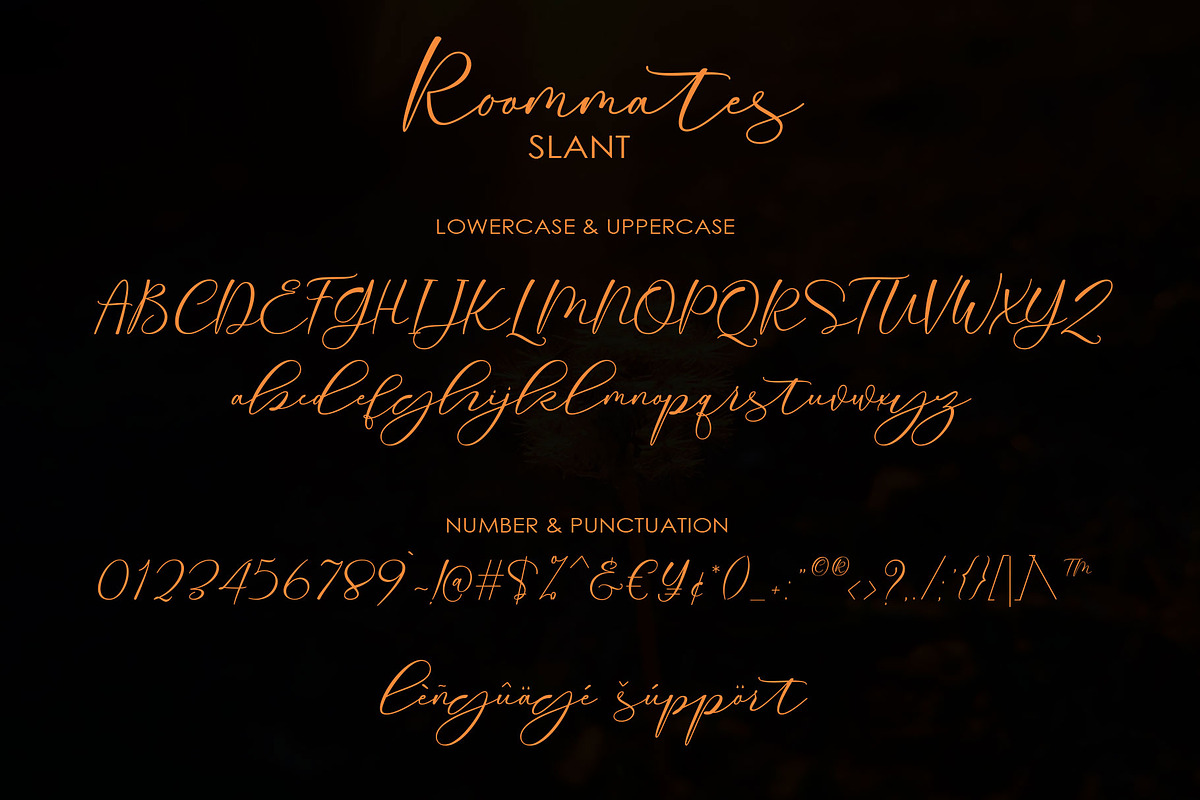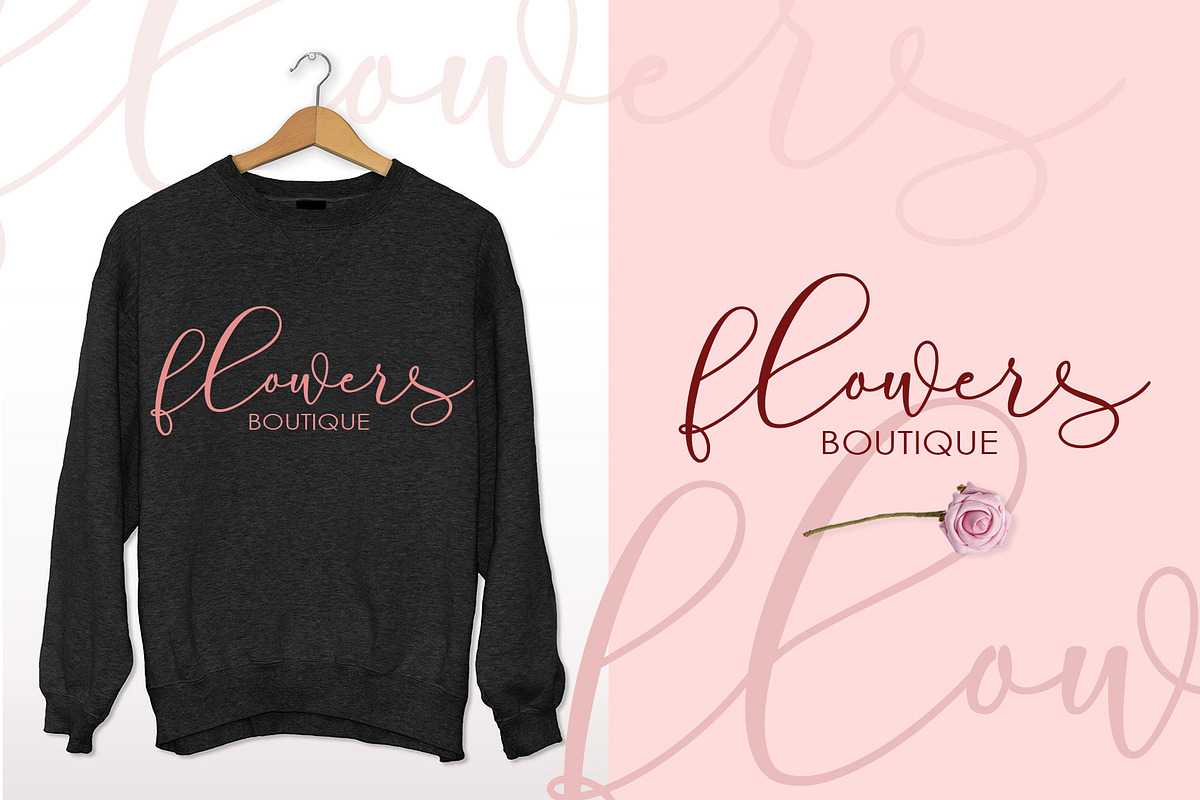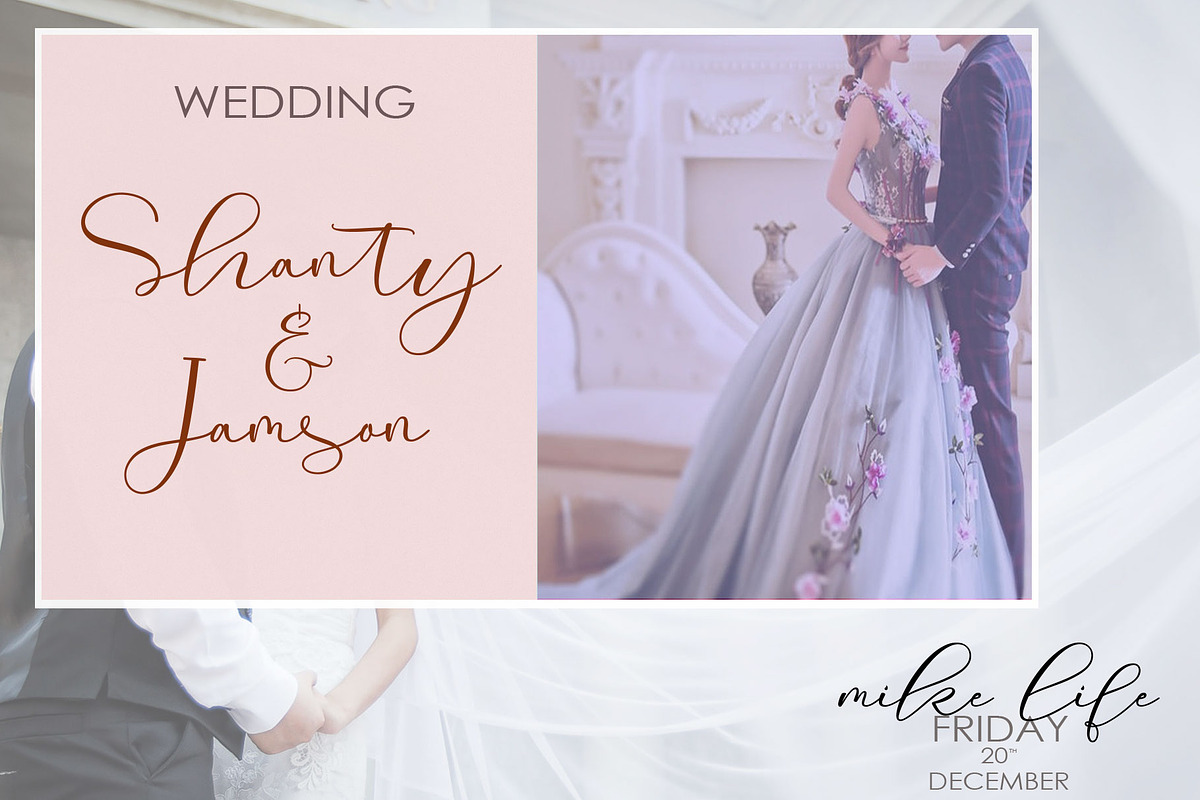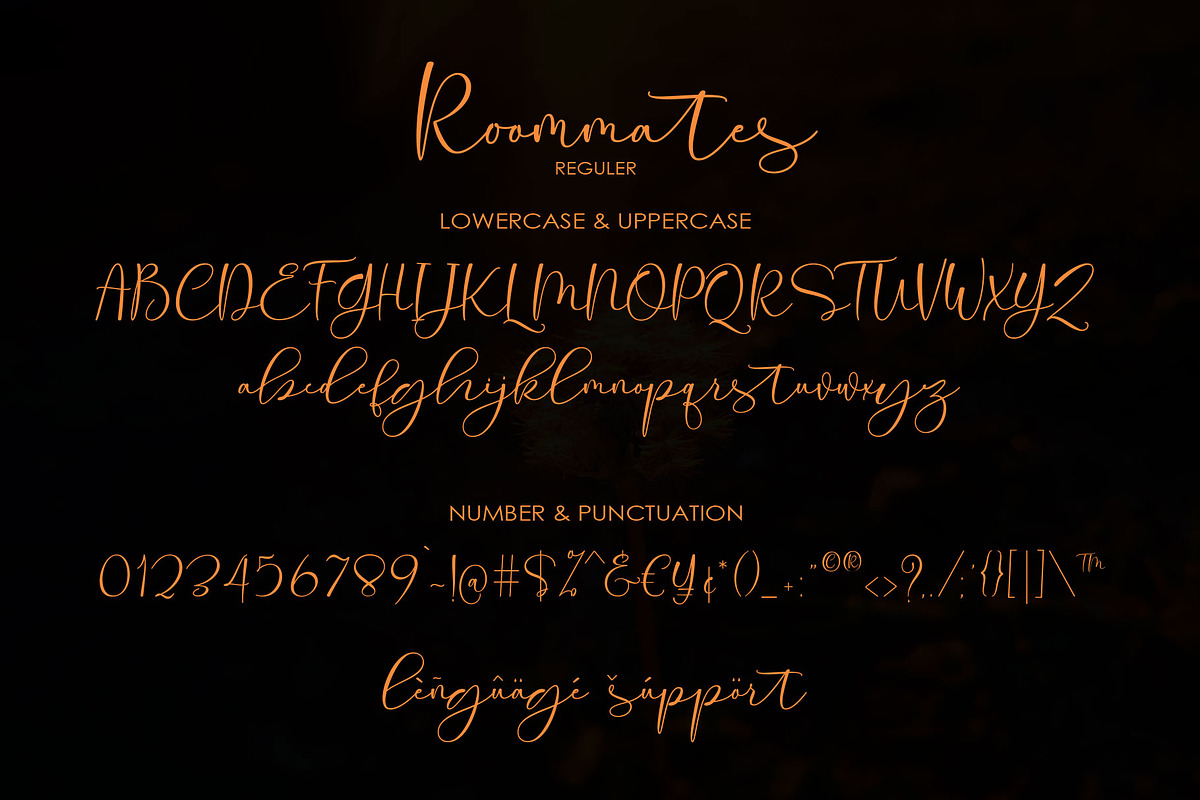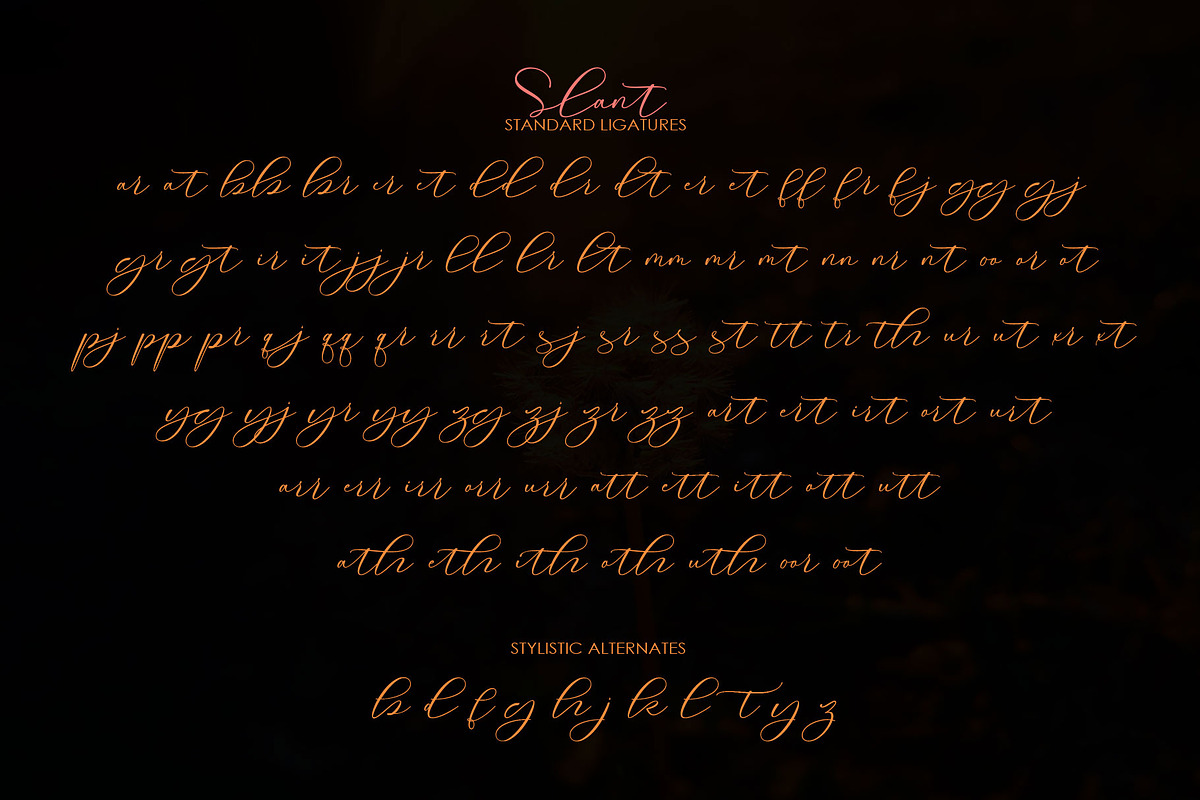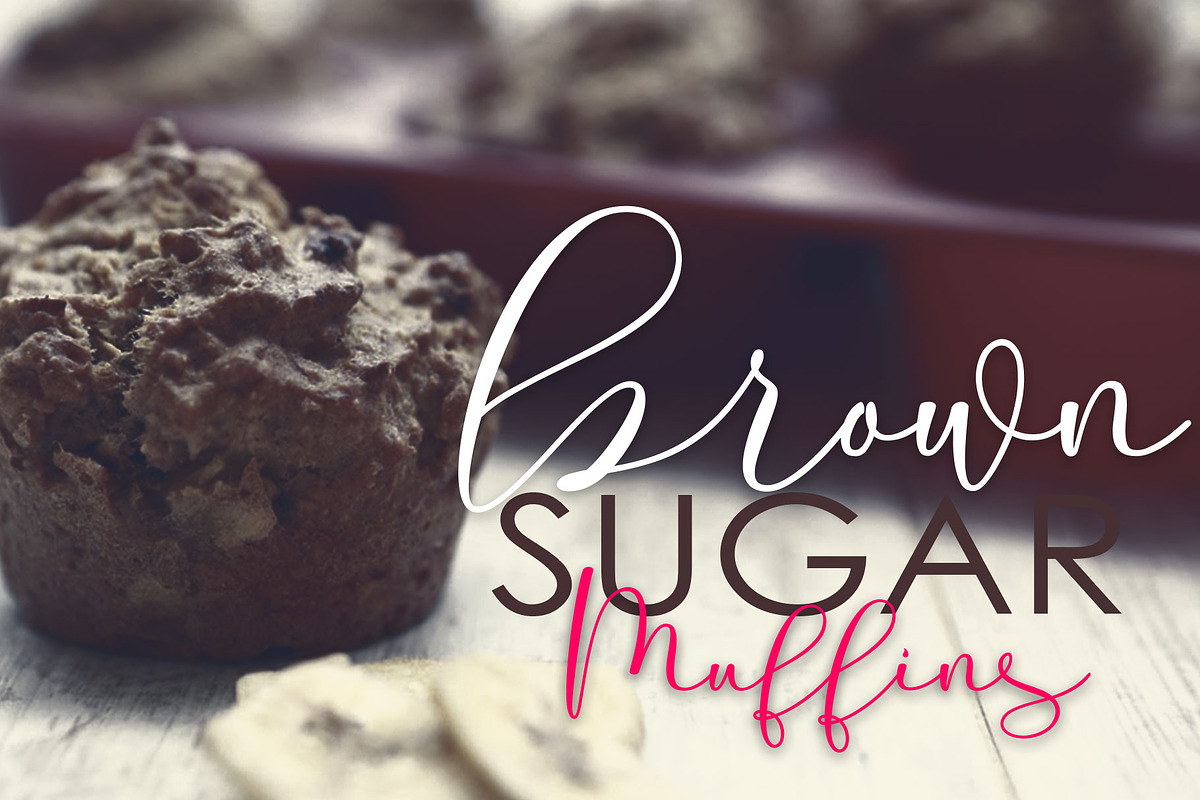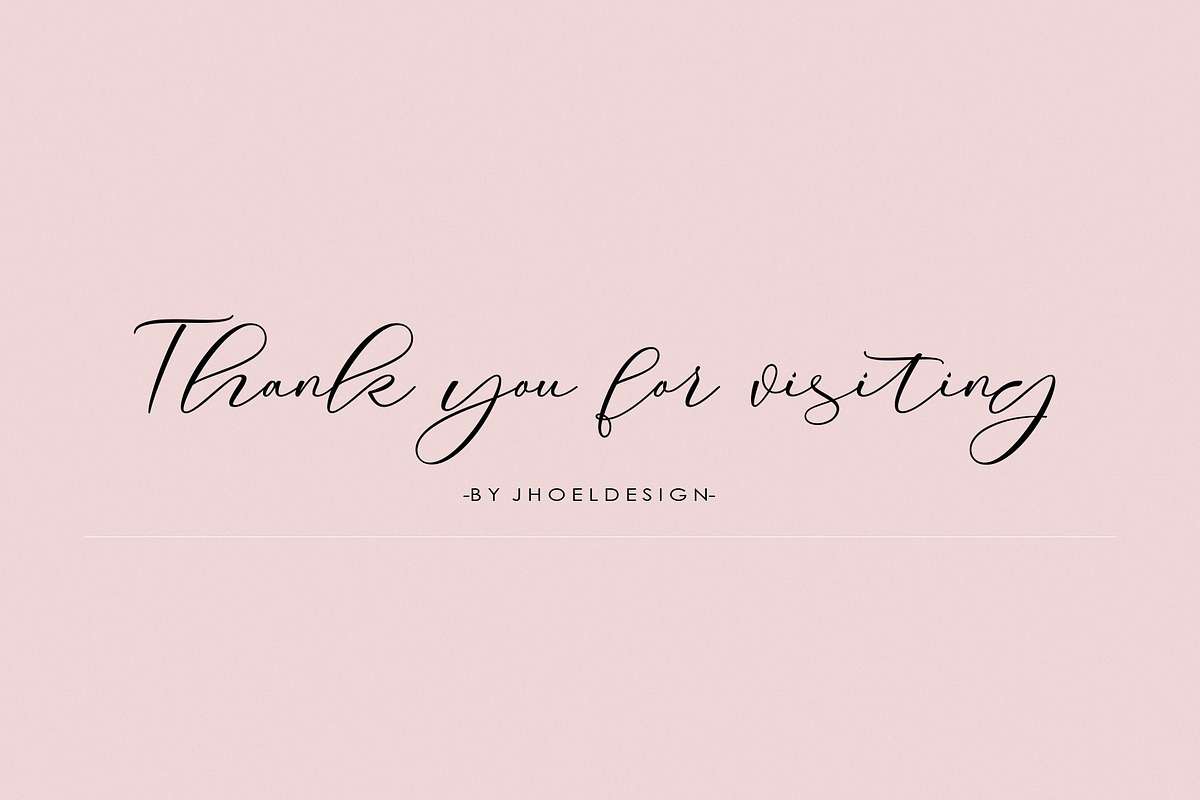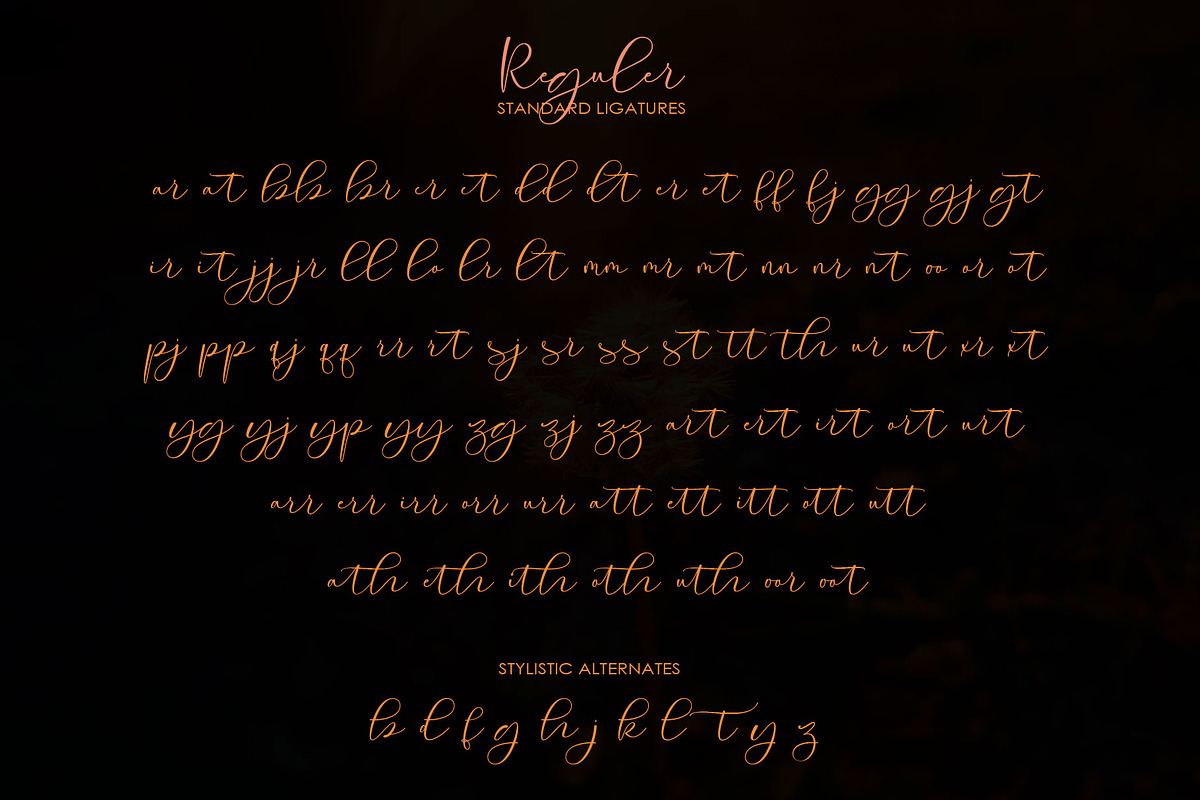
Roommates Script (Reguler & Slant)
INTRODUCING the new beautiful Roommates Script Font! Comes with two Regular versions and Slant to beautify your artwork!
Roommates Script offers you a beautiful typographic harmony for a variety of project designs. Roommates Script can be used for logos and branding, wedding designs, social media posts, advertising, product design and much more! for any business that wants to appear classy and chic.
Roommates Script has two versions of Regular & Slant : Each one contains a complete set of lowercase letters, uppercase letters, all punctuation marks, numbers, stylistic alternates, 77 and 83 standard ligatures, and multilingual support.